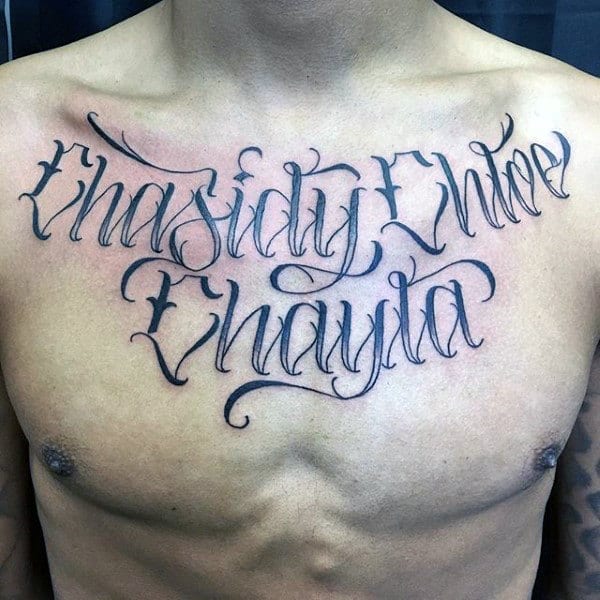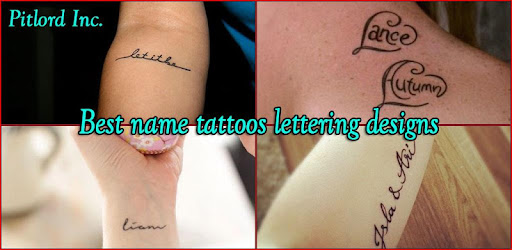
La Belle Aurore Font Style for a Name Tattoo. Lettering styles include tribal traditional sailor blackletter fancy cursive script etc.
The Art Of Choosing The Perfect Font And Lettering For A New Tattoo Tatring
As a bonus youll also get a Cyrillic character set and Ornamental weight versions of the font.
Home Tattoos Cute Graffiti Gothic More Graphic fonts Alphabets. Old English fonts or custom fonts are often used as pure font tattoos eg. Cursive tattoo fonts which are custom designed by the many tattoo artists across the globe require a lot of artistic talent and personal creativity.
Celtic fonts graffiti fonts blade fonts etc. Tattoo Ink by Ryan Splint. Font text goes especially well in tattoos that signify special moments such as My Sister My Friend and similar heartfelt sayings.
The font includes several weights that let you choose from hairline thin to heavy bold. Picking a font for your next tattoo is a very important decision. Other popular fonts used in tattoos include.
Poems names and phrases as used in calligraphic tattooing. Font design and ideas make the perfect compliment to any tattoo. One font we like is Tattoo Girl designed by Otto Maurer as shown in the image below.
Calligraphy Decorative Gothic Script Tattoo. Click to find the best 138 free fonts in the Tattoo Lettering style. Old English fonts are also used a lot in tattoo designs because they have a distinguished look and evoke some medieval atmosphere.
Kelly Slab Font Style for a Name Tattoo.